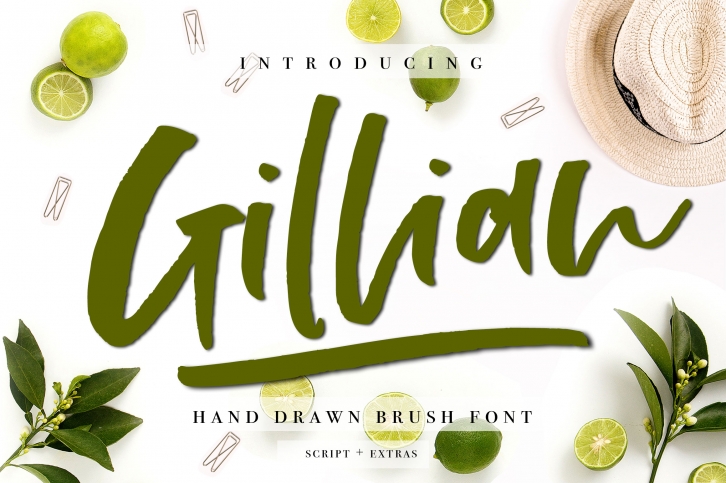
Gillian Font + Extras Download
Gillian + Extras is a great font that was designed by Calamar. Imagine the amount of combinations you can create using this font! The archive is 5.94 MB and it was released on April 24, 2018. Gillian + Extras looks beautiful on wedding invitations, greeting cards, logos, posters, labels, t-shirt designs, logos, business cards and is perfect for use in ink or watercolor works, fashion, magazines, packaging and food menus, children's books and more!